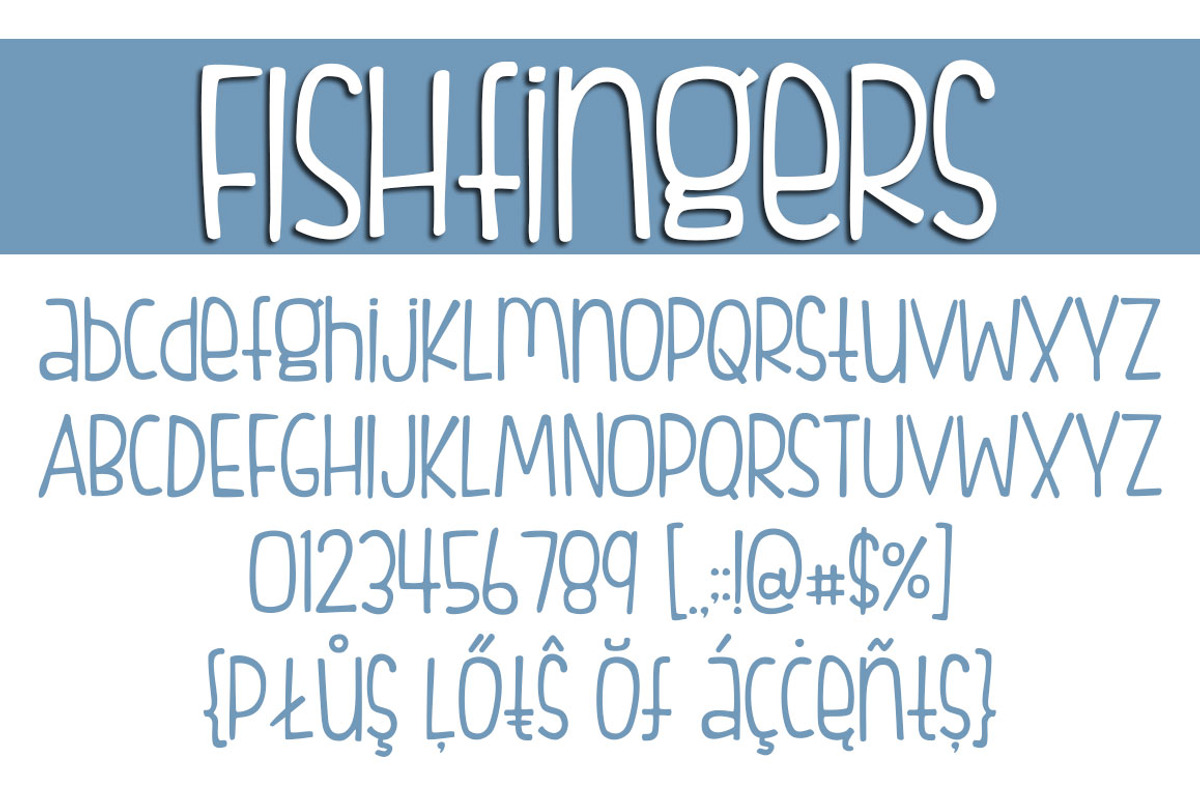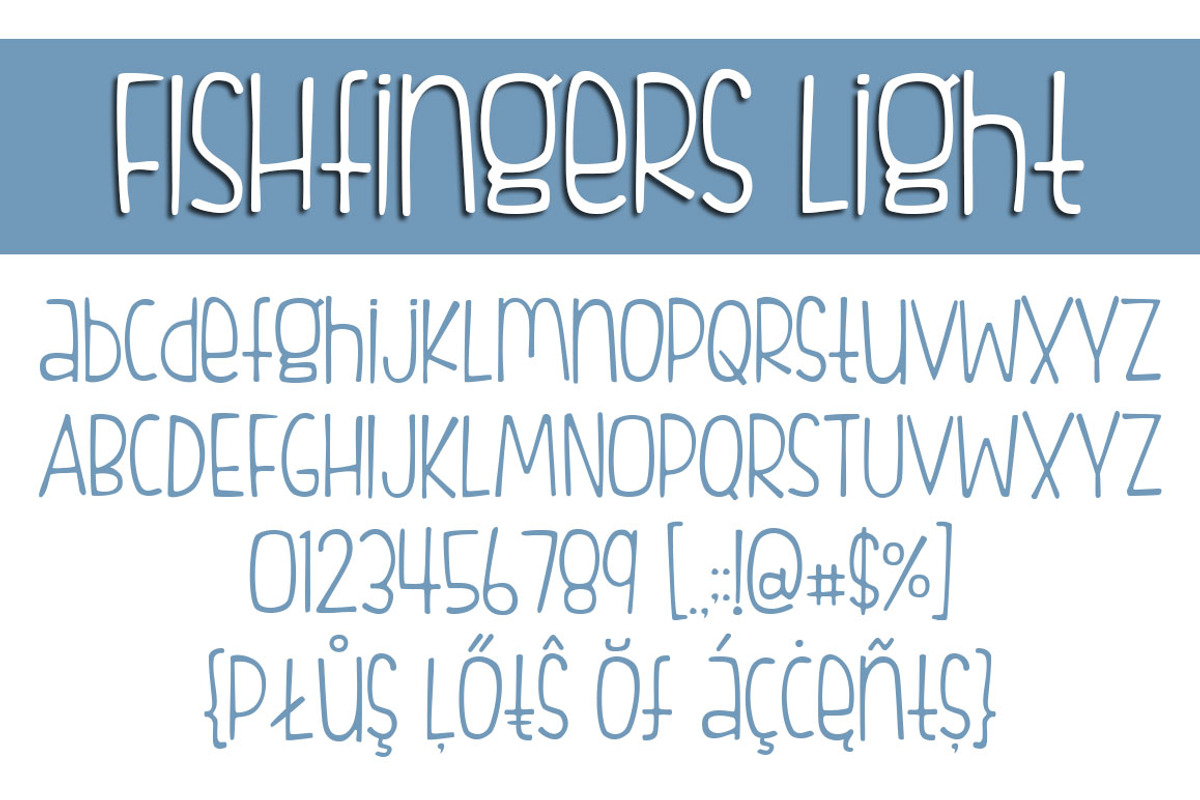
Fishfingers Font Family
Fishfingers Font Family by Brittney Murphy Design is a font selected for branding, posters, packaging, typography.
Why Fishfingers Font Family is worth a look
Fishfingers Font Family by Brittney Murphy Design fits naturally into Branding, posters, packaging, typography.